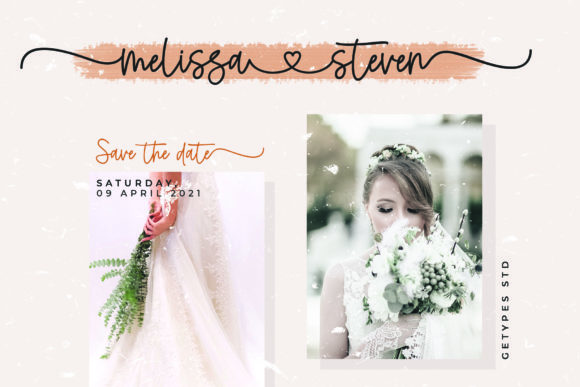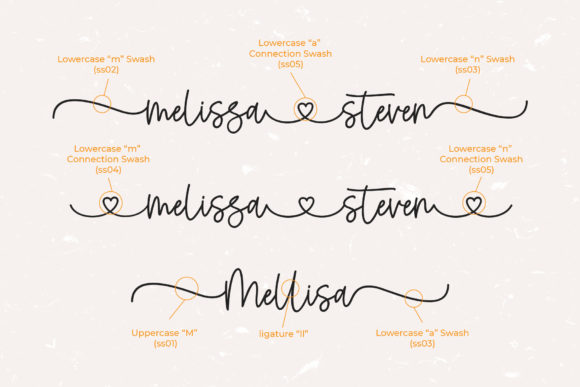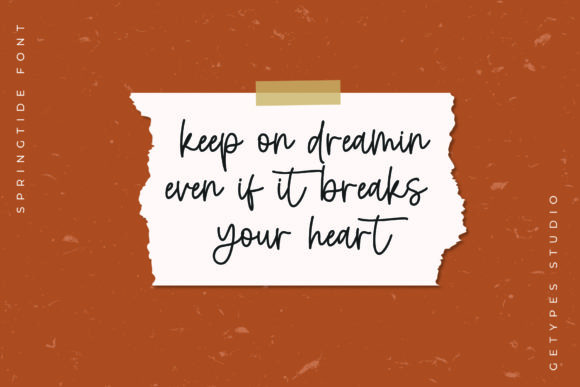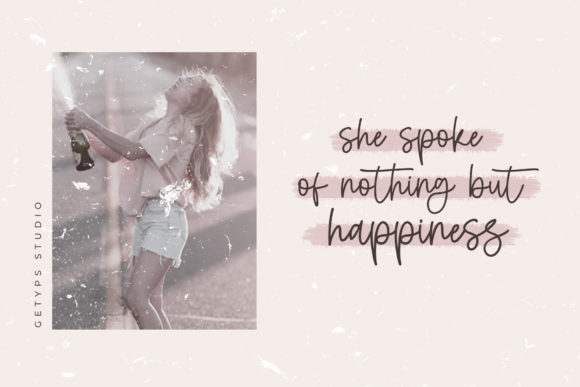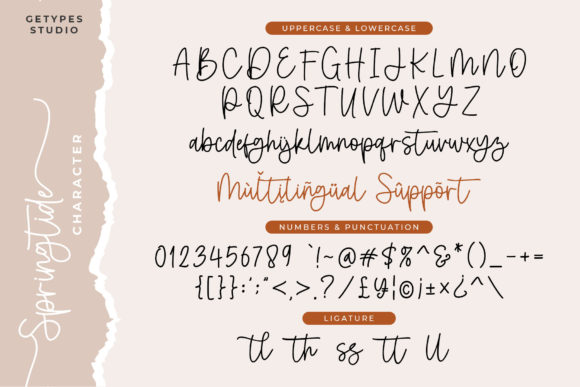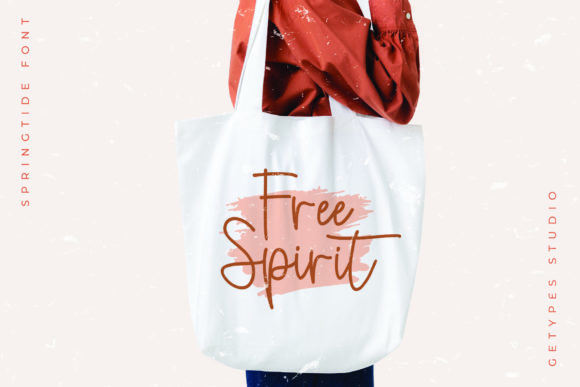
Springtide Font
About Springtide Font
Springtide is a monoline and handwritten script font. This font is perfect for SVG designs, shirts, crafts, websites, farmhouse decor, Christmas designs, branding, blogs, logos, invitations, and more!